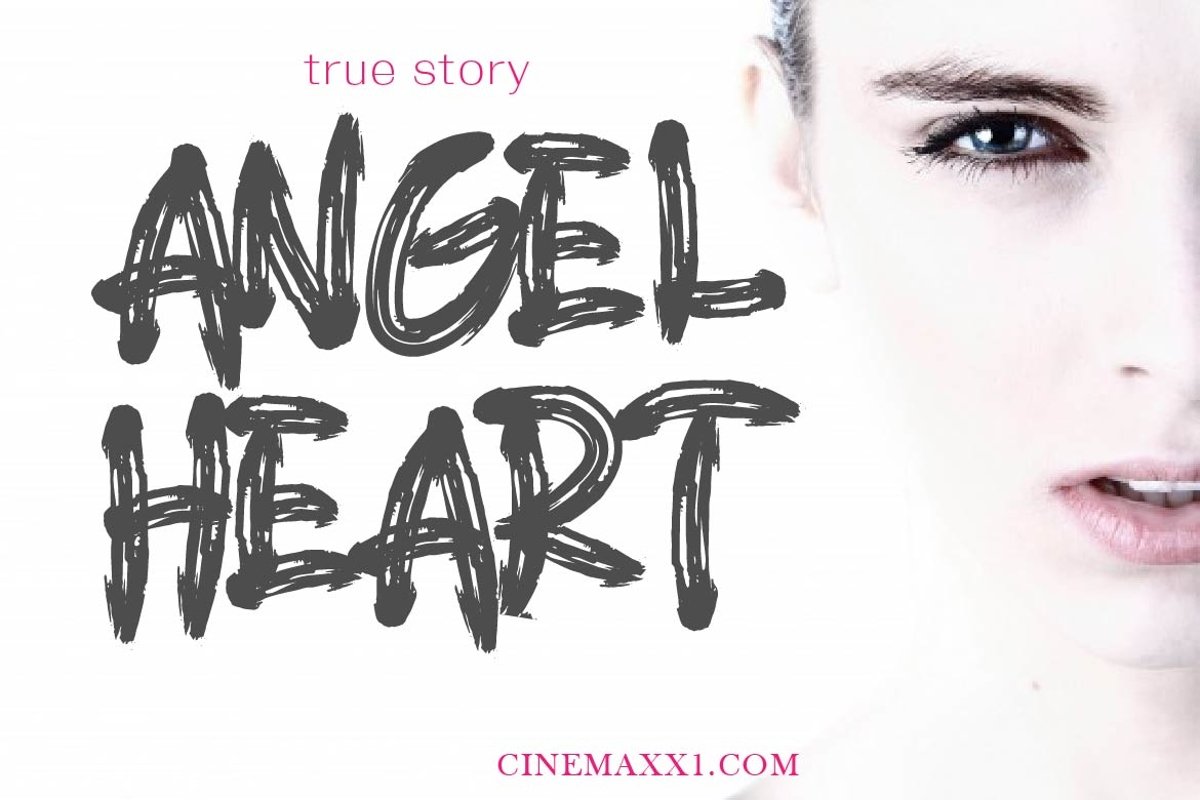
JUNGLE TO JUNGLE
INTRODUCING
JUNGLE TO JUNGLE is a supercharged font, with natural brush, quick strokes and sharp details.
JUNGLE TO JUNGLE It contains ALL CAPS and also support multilingual. Perfect for challenging jobs, titles, logos, apparel, t-shirts, hoodies, quotes, product packaging, or anything that needs a typographic turbo-boost and a typographic unique style.